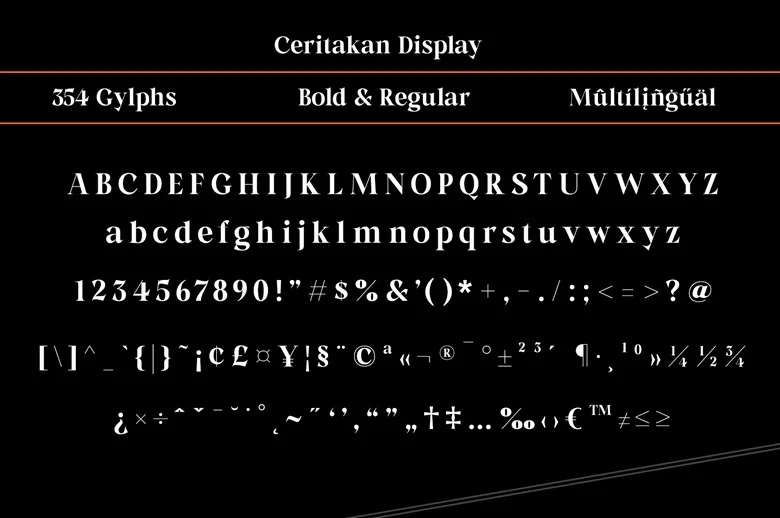
Ceritakan Display Font
Ceritakan means “tell it” in Indonesian, and the font is made for titles that tell a story. Mytype Studio, based in Yogyakarta, drew a heavy display serif with wedge shaped serifs, strong contrast and a slightly condensed lowercase. On the cover the name sits in white over a dark stairway.
Best uses for Ceritakan Display
• Book and novel covers
• Magazine headlines
• Film posters
• Editorial websites
• Brand wordmarks
Ceritakan Display pairs well with Source Sans 3 for body text, Lora for long reading and Barlow for captions.
Ceritakan Display Serif Font
What free font is similar to Ceritakan Display?
DM Serif Display and Young Serif are open licence display serifs with a similar strong contrast.
What does Ceritakan mean?
It is Indonesian and roughly means “tell it” or “tell the story”. The name fits a font aimed at book covers and editorial titles.